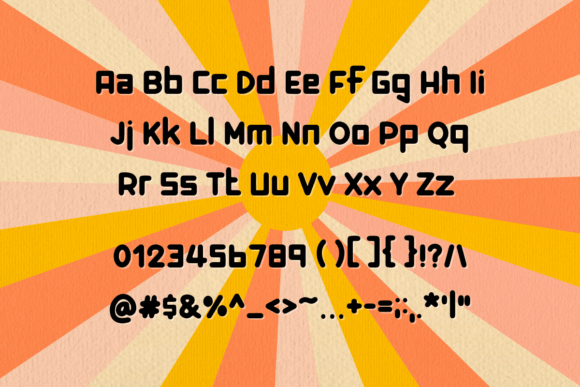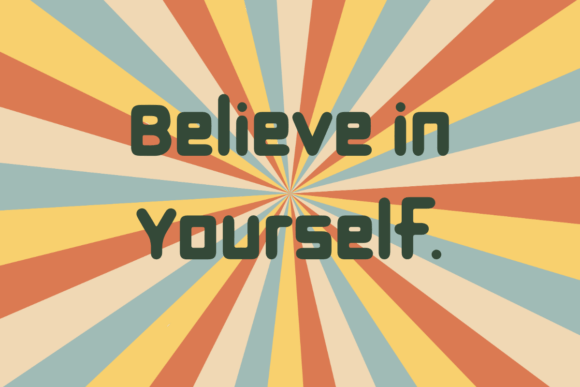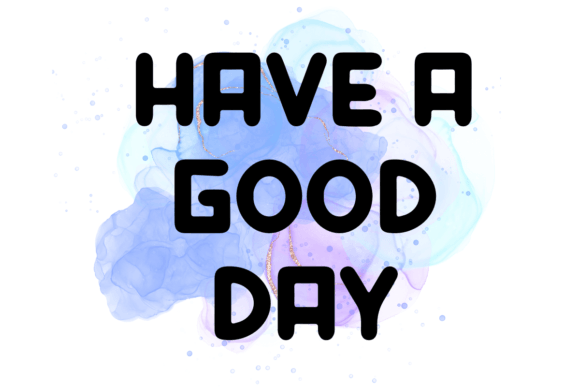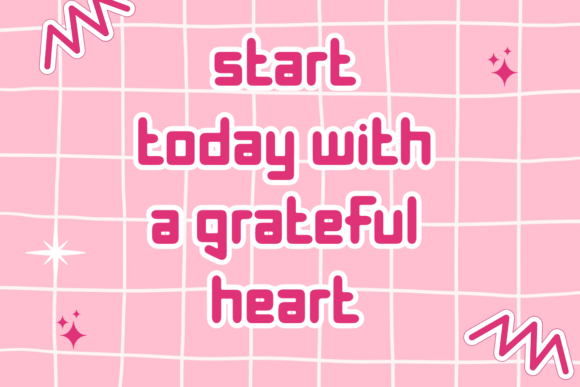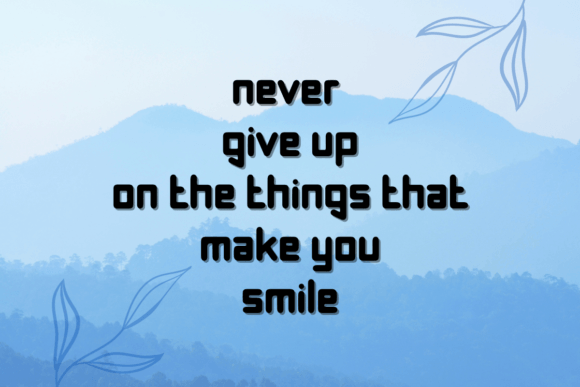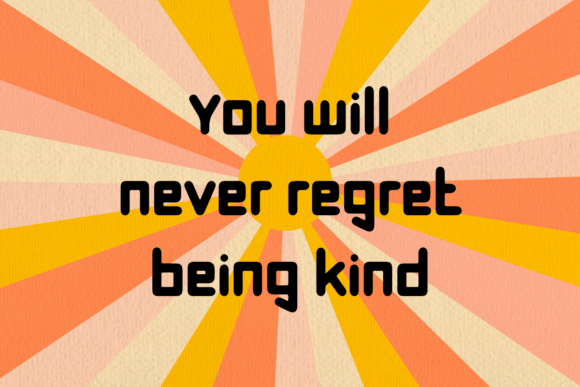
Aileen Font: The Ultimate Display Font for Creative Designs
Are you a designer or crafter looking for a font that can add a touch of cuteness and adorability to your designs? Look no further than Aileen Font! This versatile display font is perfect for creating eye-catching designs for various projects, from T-shirts and tote bags to wedding invitations and logos.
What is Aileen Font?
Aileen Font is a modern display font designed to bring a playful and charming touch to your designs. Its unique and quirky style makes it perfect for creating fun and eye-catching designs that stand out from the crowd. Whether you’re a professional designer or a crafter, Aileen Font is an excellent choice for adding a personal touch to your projects.
Features of Aileen Font
- Cute and Adorable: Aileen Font is designed to be cute and adorable, making it perfect for designs that require a playful touch.
- Versatile: This font is suitable for a wide range of projects, including T-shirts, tote bags, hats, stickers, wedding invitations, logos, cards, quotes, and more!
- Easy to Read: Despite its playful style, Aileen Font is easy to read, making it perfect for designs that require a clear and concise message.
- High-Quality: Aileen Font is a high-quality font designed to deliver crisp and clear results, even at large sizes.
Uses of Aileen Font
Aileen Font is an incredibly versatile font that can be used for a wide range of projects, including:
- T-Shirts: Create eye-catching T-shirt designs that stand out from the crowd.
- Tote Bags: Add a playful touch to your tote bag designs with Aileen Font.
- Hats: Create fun and quirky hat designs that are perfect for festivals, parties, or everyday wear.
- Stickers: Design adorable stickers that are perfect for laptops, water bottles, or any other surface.
- Wedding Invitations: Add a touch of whimsy to your wedding invitations with Aileen Font.
- Logos: Create a unique and memorable logo for your business or brand.
- Cards: Design beautiful and playful cards for special occasions, such as birthdays, holidays, or get-well wishes.
- Quotes: Create inspiring and eye-catching quote designs that are perfect for social media or print.
Why Choose Aileen Font?
With so many fonts available, why choose Aileen Font? Here are just a few reasons:
- Unique Style: Aileen Font has a unique and quirky style that sets it apart from other fonts.
- High-Quality: Aileen Font is a high-quality font designed to deliver crisp and clear results.
Tips for Using Aileen Font
Here are a few tips for using Aileen Font:
- Experiment with Sizes: Aileen Font looks great at various sizes, so experiment to find the perfect size for your design.
- Play with Colors: This font looks great in a range of colors, so don’t be afraid to experiment and find the perfect color for your design.
- Combine with Other Fonts: Aileen Font pairs well with other fonts, so try combining it with a serif or sans-serif font for added interest.
Aileen Font is a versatile and adorable display font that’s perfect for designers and crafters looking to add a playful touch to their designs. With its unique style, ease of use, and high-quality design, Aileen Font is an excellent choice for a wide range of projects. Whether you’re creating T-shirts, tote bags, or wedding invitations, Aileen Font is sure to deliver eye-catching results.